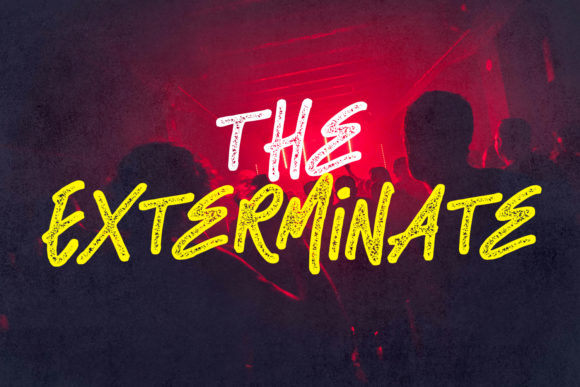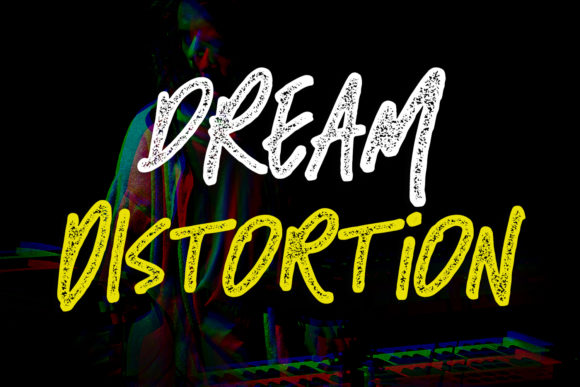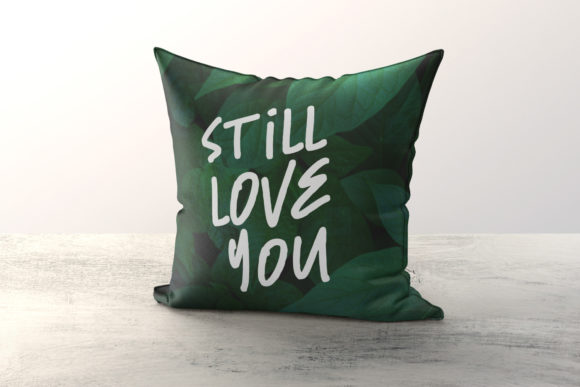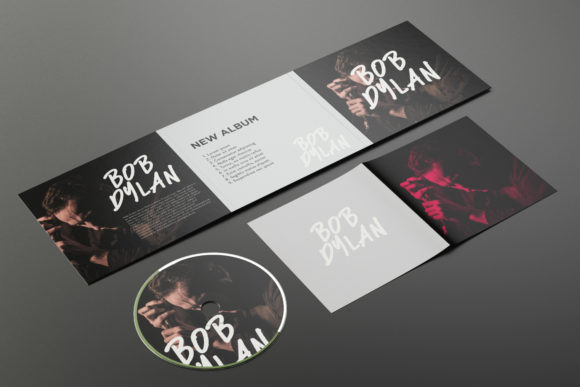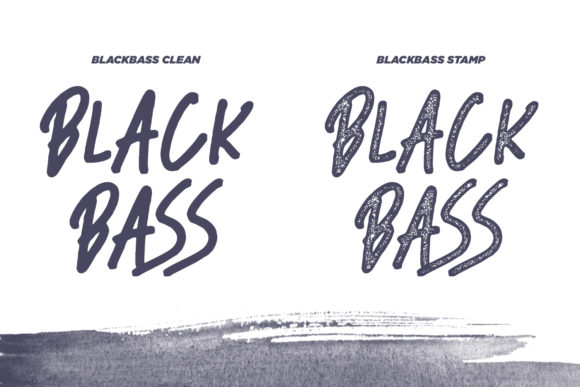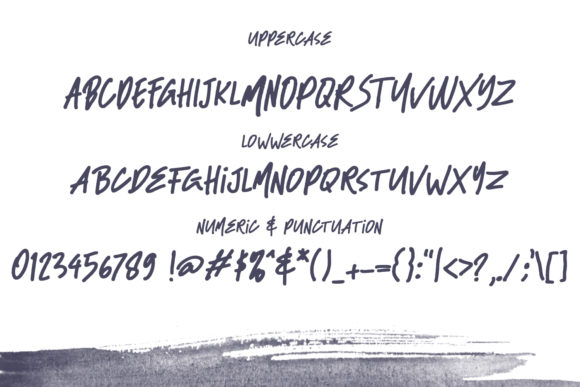
Unleash the Power of Black Bass Font: Elevate Your Design Projects with an Authentic Twist
Are you tired of using the same old fonts in your design projects? Do you want to add a touch of authenticity and uniqueness to your creations? Look no further than the Black Bass font, a strong and natural display font that’s sure to take your designs to the next level.
What is Black Bass Font?
Black Bass is a display font that’s inspired by the natural world. With its sturdy and robust design, it’s perfect for creating eye-catching headlines, titles, and logos that demand attention. The font’s authentic twist sets it apart from other display fonts, giving it a distinctive character that’s both modern and timeless.
Key Features of Black Bass Font
• Strong and Natural Design: Black Bass has a sturdy and robust design that’s perfect for creating bold and eye-catching text.
• Authentic Twist: The font’s unique character is inspired by the natural world, giving it a distinctive and authentic feel.
• Display Font: Black Bass is designed specifically for display use, making it perfect for headlines, titles, and logos.
• Easy to Read: Despite its bold design, Black Bass is easy to read, even at smaller sizes.
Why Use Black Bass Font?
So why should you use Black Bass font in your design projects? Here are just a few reasons:
• Add Authenticity to Your Designs: Black Bass font has a unique and authentic character that’s sure to set your designs apart.
• Stand Out from the Crowd: With its bold and eye-catching design, Black Bass font is sure to grab attention and make your designs stand out.
• Perfect for Outdoor and Nature-Inspired Designs: The font’s natural inspiration makes it perfect for outdoor and nature-inspired designs, such as logos, packaging, and advertising.
• Versatile: Black Bass font can be used in a wide range of design projects, from branding and advertising to packaging and web design.
How to Use Black Bass Font
Using Black Bass font in your design projects is easy. Here are a few tips to get you started:
• Use it as a Headline Font: Black Bass font is perfect for creating bold and eye-catching headlines that demand attention.
• Pair it with Other Fonts: Experiment with pairing Black Bass font with other fonts to create a unique and visually appealing design.
• Use it for Logos and Branding: The font’s strong and natural design makes it perfect for creating logos and branding materials that are both modern and timeless.
In conclusion, Black Bass font is a powerful and versatile display font that’s perfect for designers and crafters looking to add a touch of authenticity and uniqueness to their designs. With its strong and natural design, authentic twist, and ease of use, it’s sure to become a go-to font in your design arsenal. So why wait? Download Black Bass font today and take your design projects to the next level!